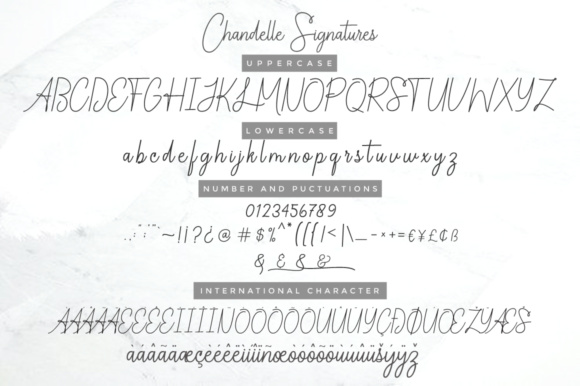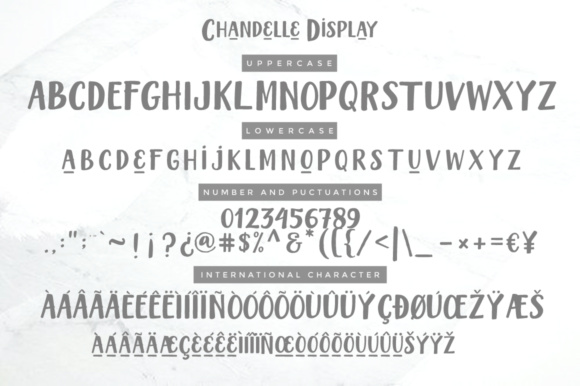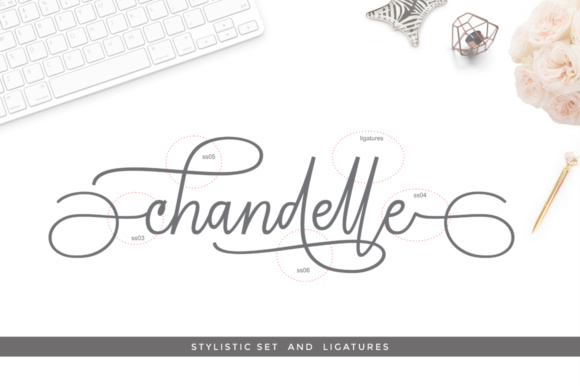
About Chandelle Font
The Chandelle is a handwritten signature script with a natural & stylish flow, perfectly suited for signatures, stationery, logos, typography quotes, magazines or book covers, website headers, and much more!
The Chandelle is a must-have signature script that has a diverse set of alternates that will surely be used many times over in various projects in the future. This collection fills a void and separates itself from other scripts available.